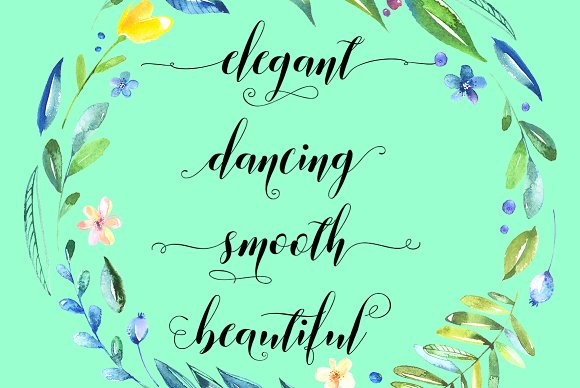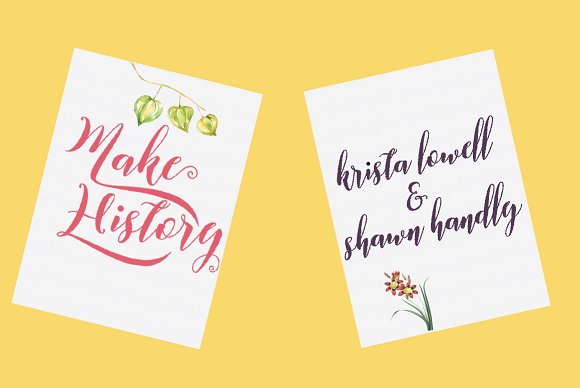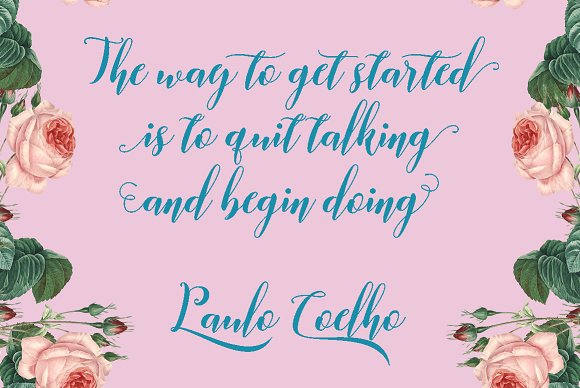
Introduction to Ismelda Font
Have you ever been working on a creative project, pouring your heart and soul into every detail, only to realize that the right font is missing to tie everything together? That’s exactly what happened to many designers when they stumbled upon the Ismelda Font.
Created by the talented team at Area Type, Ismelda Font is a beautiful, handwritten font that adds a touch of elegance and sophistication to any design. Whether you’re working on a personal project or a client’s design, having access to a high-quality font like Ismelda Font can make all the difference in bringing your vision to life.
Key Features of Ismelda Font
- Suitable for a wide range of creative projects, including logos, typography, and graphics.
- Comes with a comprehensive character set, including Latin, Cyrillic, and Greek alphabets, making it a versatile design resource.
Honest Review: Ismelda Font
As a designer, I’m always on the lookout for high-quality design resources to elevate my creative projects. Recently, I stumbled upon the Ismelda Font, and I’m excited to share my honest review with you.
- ✨ The font is incredibly versatile and can be used for a wide range of creative projects, from branding to digital design.
- ✨ The high-quality design is evident in every aspect of the font, from the bold lines to the intricate details.
- ⚠️ The font doesn’t come with as many variations or styles as some other popular fonts on the market.
Overall, I’m really impressed with the Ismelda Font. It’s a solid addition to any designer’s toolkit, and I can see it being used in a variety of creative projects. With its high-quality design and versatility, it’s definitely worth checking out.
How to Use Ismelda Font
The Ismelda Font is a high-quality design resource perfect for any creative project. With a transparent background, it’s ideal for overlaying on images or backgrounds to create visually appealing designs.
To get the most out of the Ismelda Font, try experimenting with different font sizes, colors, and combinations. You can also use it to create custom logos, titles, and headings.
The Ismelda Font is perfect for:
- Creating visually appealing social media graphics.
- Designing custom invitations and event materials.
- Developing brand identities and logos.
Alternatives to Ismelda Font
The Great Vibes Font is a high-quality, elegant script font ideal for creative projects, such as wedding invitations, event branding, and packaging design. It features a transparent background, making it perfect for overlaying on images. When to use: For projects requiring a sophisticated, handwritten look.
Comparison to Ismelda Font: Great Vibes Font offers a more refined and polished feel, while Ismelda Font has a bolder, more playful appearance.
The Alex Brush Font is a beautiful, handwritten font suitable for design projects, such as typography posters, quotes, and book titles. It features a high-quality design and is available for free download. When to use: For projects requiring a unique, artistic touch.
Comparison to Ismelda Font: Alex Brush Font has a more delicate and whimsical feel, whereas Ismelda Font is bolder and more eye-catching.
The Dancing Script Font is a high-quality, elegant script font ideal for design projects, such as logos, branding, and marketing materials. It features a transparent background and is available for free download. When to use: For projects requiring a sophisticated, yet playful look.
Comparison to Ismelda Font: Dancing Script Font has a more dynamic and expressive feel, while Ismelda Font is more subdued and classic.